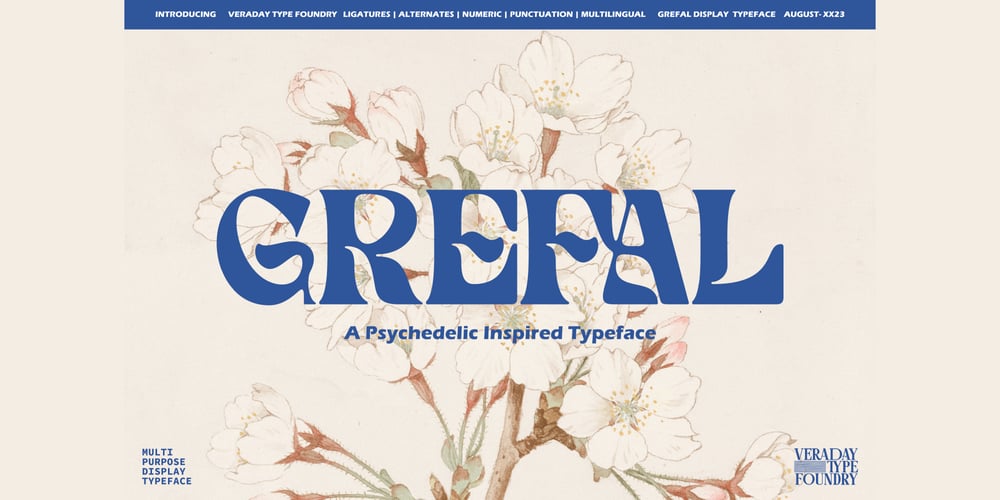
Grefal Display
Grefal Display font
Grefal Display Font Family was designed by Ferdiansyah and published by ijemrockart. Grefal Display contains 1 styles and family package options. Grefal Display Font is a psychedelic inspired typeface. Unique tripped out lettering makes this font perfect for those groovy band poster, hippy logos and quotes. Grefal Display Font mixes futurist letters with nostalgic curves to create stand out typography.Including lots of alternate letters!